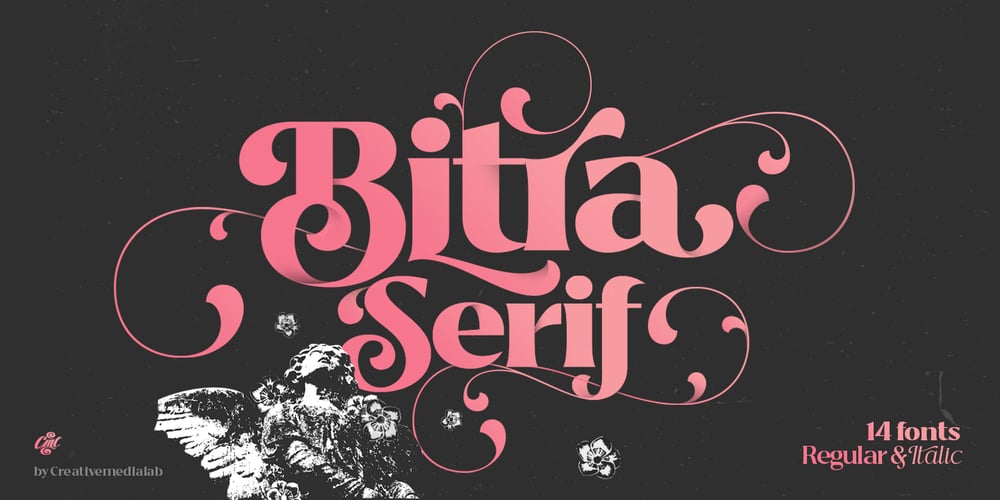
Bitra
Bitra font
Bitra Font Family was designed by Kadek Mahardika and published by Creativemedialab. Bitra contains 17 styles and family package options. Bitra is a beautiful, elegant, and versatile serif family. It has tons of alternative characters with Excessive flourishes, giving a playful feel to your design.Ornaments are inspired by the beauty of the bird of paradise tail.Bitra comes with seven weights with its matching italic, ornaments, and variable format.